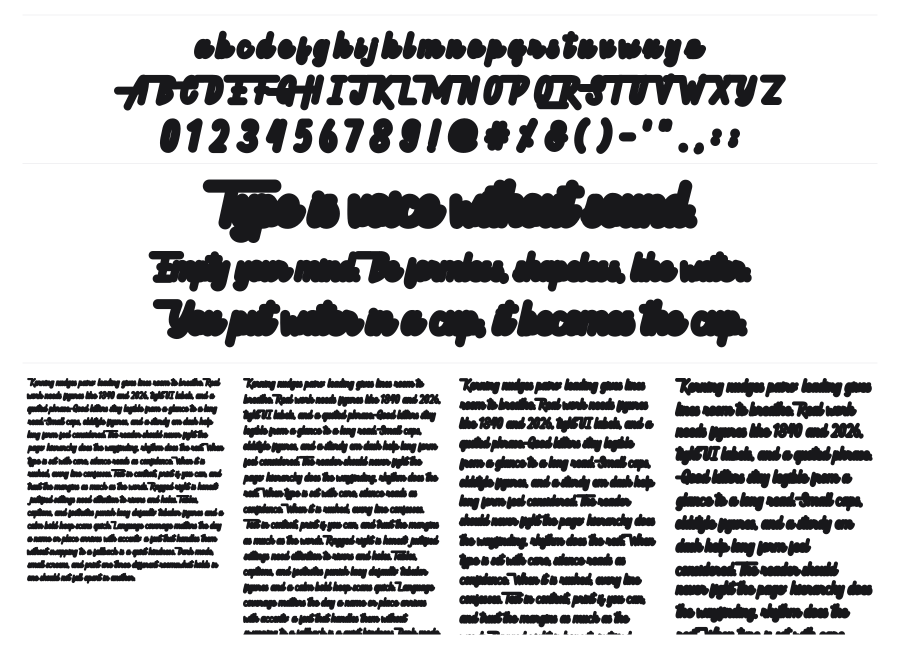
Hellytail
Hellytail is a bold, bubbly casual script that takes rounded lettering to an extreme, inflating every stroke into smooth, balloon-like forms. The letters flow together in a connected chain with a satisfying puffiness that reads instantly as fun and energetic. It works best large, where the weight and roundness can make a full visual impact.